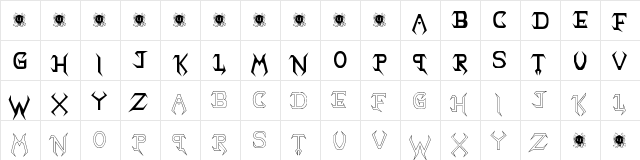
Marlen The Ponderosa Regular
| Foundry | LJ-Design Studios |
| Designer | Luis Jaramillo |
Design Context for Marlen The Ponderosa Typeface
Marlen The Ponderosa is a composed and adaptable typeface that performs quietly and consistently across a wide range of design contexts.
Pro Tip: Use Marlen The Ponderosa in both headline and body roles to test its range before committing to a single application.